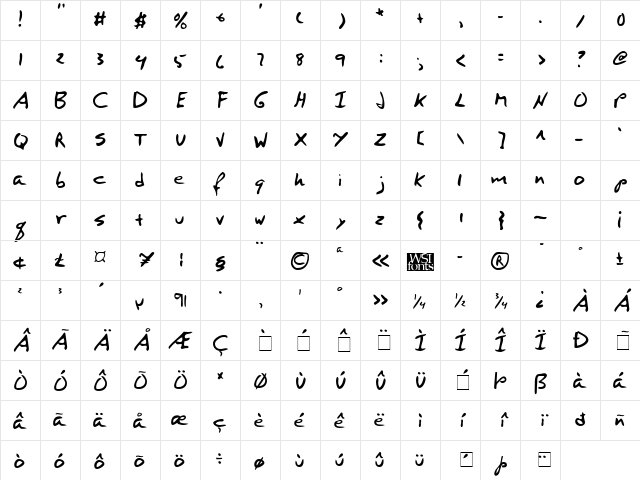
VincentsHand Regular
Design Context for VincentsHand Typeface
VincentsHand flows with the natural rhythm of handwritten lettering, making it ideal for designs that call for warmth and personal expression.
Font Pairing: Combine VincentsHand with a simple geometric sans for maximum contrast — the tension between flowing curves and clean structure is a classic typographic pairing.
Pro Tip: Use VincentsHand for short runs of text — names, titles, or taglines. Extended body copy in script faces tires the eye quickly.